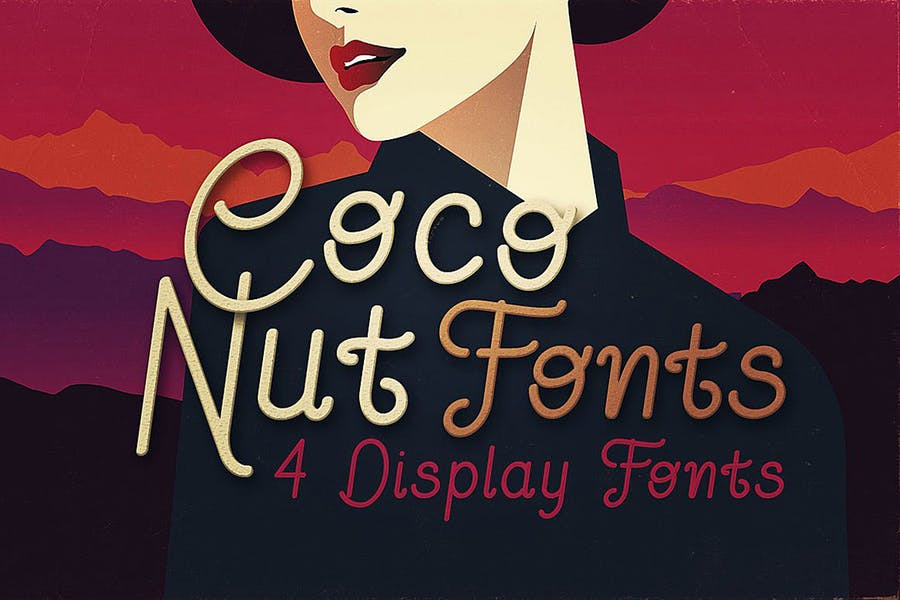
Coconut - Display Font
Coconut Display Font is perfect for tropical resort branding, beachside restaurant signage, summer vacation marketing, tiki bar communications, island-themed events, tropical beverage packaging, beach club advertising, and exotic paradise promotions.
What makes Coconut Display Font exciting is its tropical paradise that embodies the laid-back charm and exotic beauty of island living with beachside authenticity and tropical warmth. The font features organic letterforms with island-inspired curves and tropical character that evoke swaying palm trees, sandy beaches, and the carefree spirit of tropical vacation destinations and island paradise lifestyle. Its distinctive tropical styling and paradise appeal communicate relaxation, escape, and exotic beauty, making every message feel kissed by ocean breezes and touched by the natural warmth of tropical island culture and beachside paradise.
The Coconut Display Font family includes regular weight with uppercase and lowercase letters, numerals, punctuation marks, and special characters. Premium versions often feature tropical alternates and island elements that enhance the paradise, beachside aesthetic perfect for vacation and hospitality applications.
This delightful tropical typeface brings instant paradise and vacation credibility to any island-themed project. Coconut Display Font Free Download delivers exceptional results for hospitality businesses and tourism organizations seeking to communicate tropical escape, island authenticity, and vacation paradise to travelers and tropical lifestyle enthusiasts.
The paradise character of Coconut Display Font makes it particularly valuable for tropical resorts, beachside restaurants, and island tour operators. Its excellent visibility ensures vacation messaging and tropical communications capture attention while maintaining the distinctive island aesthetic that appeals to travelers seeking authentic tropical experiences and paradise escapes.
Tropical tourism marketers appreciate how Coconut Display Font effortlessly conveys island authenticity and vacation appeal. The font's organic proportions and tropical details create compelling brand materials that establish connections with audiences who value tropical relaxation, island culture, and the exotic beauty of beachside paradise and coconut grove serenity.
The versatile paradise of this typeface extends to tropical products, beach fashion, and vacation planning where island authenticity enhances tropical positioning and vacation appeal. Coconut Display Font Free Download provides creative professionals with an essential tool for developing memorable, paradise-driven designs that resonate with audiences who embrace tropical lifestyle, island culture, and the exotic warmth of coconut palm paradise in their vacation and leisure experiences.